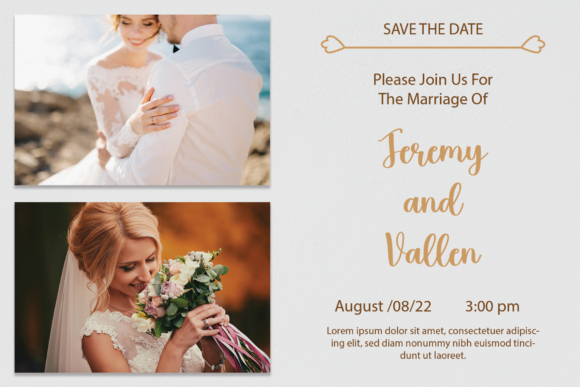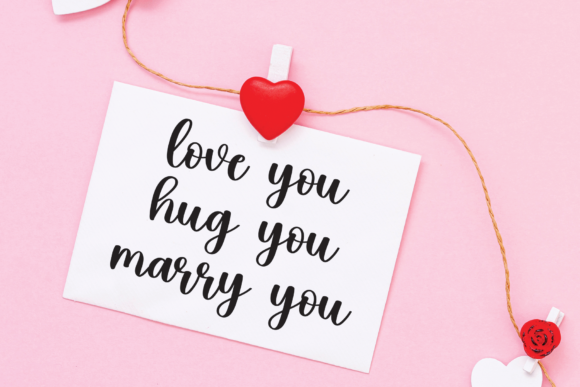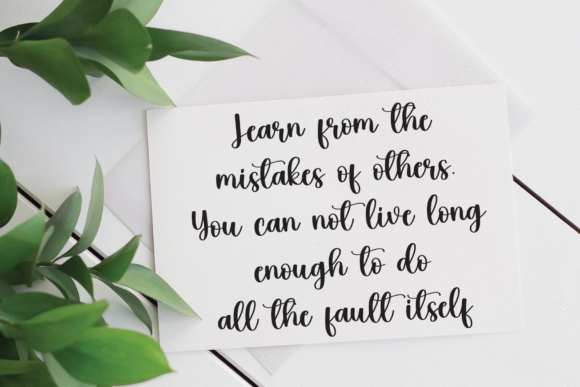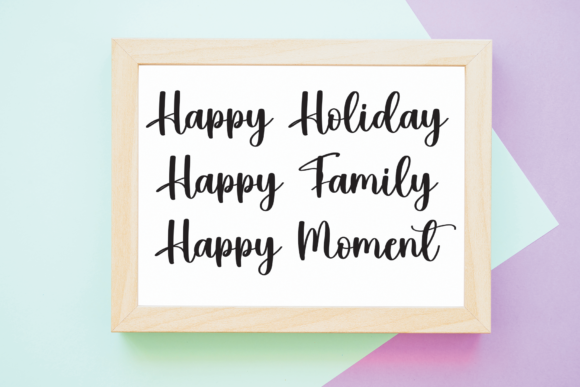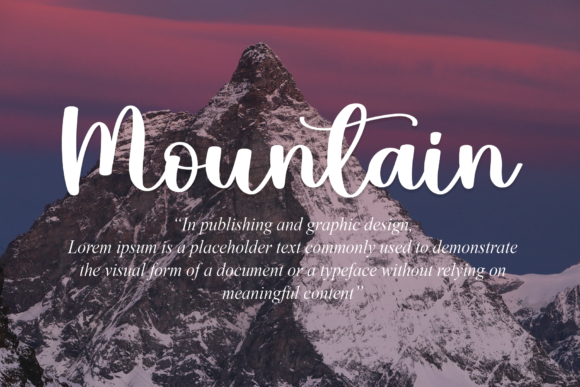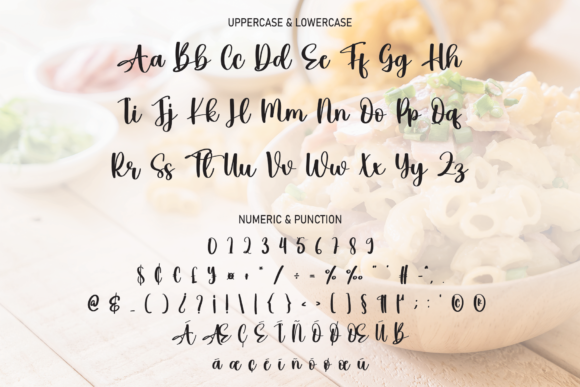
Introduction to Macaroni Font Font
Fonts play a crucial role in design, and the Macaroni Font font is a typeface that brings both character and versatility to any project. Whether you’re working on a branding project, a website, or a print design, the Macaroni Font font offers a unique style that can elevate your work.
Macaroni is a sweet and cursive handwritten font.
This gentle font will look gorgeous on a variety of design ideas It will add a joyful and romantic touch to each of your projects.
Key Features of Macaroni Font Font
Why Choose Macaroni Font Font?
The Macaroni Font font is more than just a typeface – it’s a design tool that helps you communicate your message with style and clarity. Its unique character set and versatile design make it suitable for a wide range of applications, from elegant invitations to bold headlines.
With its carefully crafted letterforms and balanced proportions, the Macaroni Font font ensures readability and visual appeal across all mediums.
What makes Macaroni Font font special?
The Macaroni Font font stands out with its unique design, exceptional readability, and versatility across various design applications.